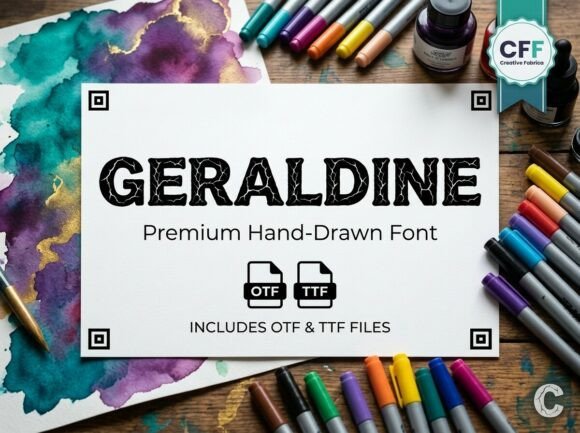
The Geraldine Font: A Stunning Decorative Display Font to Elevate Your Designs
A Font that’s Truly One-of-a-Kind
The Geraldine Font is a stunning decorative display font that’s designed to be the center of attention. With its unique artistic elements and strong visual personality, it’s perfect for creators who want to break away from the ordinary. This font is versatile enough for bold headlines, artistic logos, and creative packaging, while maintaining a professional and polished finish.
- ✨ Unique and artistic design that’s sure to turn heads.
- ✅ Professional and polished finish that’s perfect for high-end designs.
- ✅ Versatile and can be used for a variety of design projects, from bold headlines to artistic logos.
⚠️ IMPORTANT NOTE BEFORE PURCHASE: This font is an ALL-CAPS (Uppercase Only) display typeface. It does not include lowercase letters. It’s specifically designed for high-impact headlines, logos, and decorative initials where every letter is a work of art.
While this may seem like a limitation, it’s actually a deliberate design choice that adds to the font’s unique character and personality. However, it’s worth considering whether this font is right for your project if you need to use lowercase letters.
The Designer Inspiration Behind Geraldine
The Geraldine Font was designed with the intention of creating a beautiful and decorative font that’s perfect for high-impact designs. The designer, who wishes to remain anonymous, was inspired by the art nouveau movement and the intricate details of vintage typography. The result is a font that’s both elegant and refined, yet bold and eye-catching.
Q: Is the Geraldine Font suitable for body text?
A: No, the Geraldine Font is a display font that’s designed for headlines, logos, and decorative text. It’s not suitable for body text due to its ornate and decorative nature.